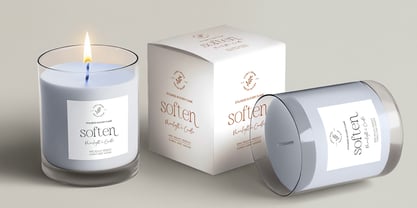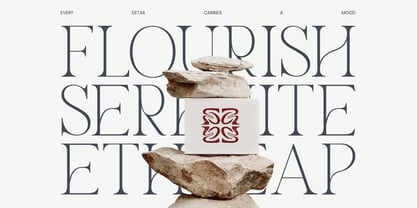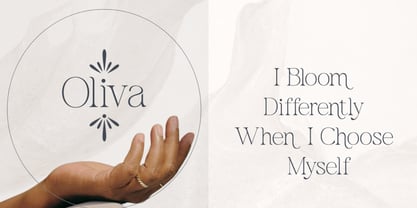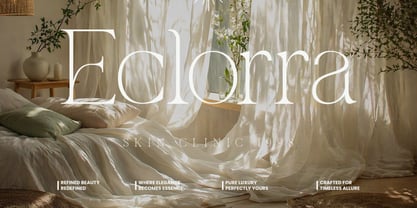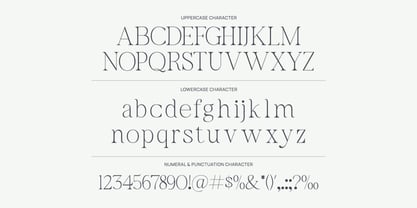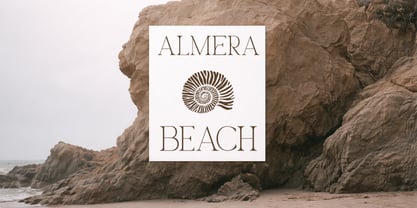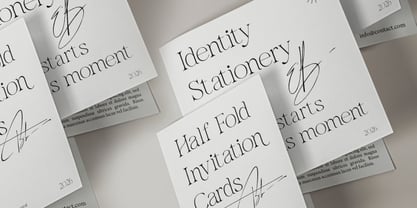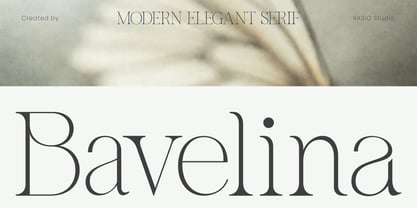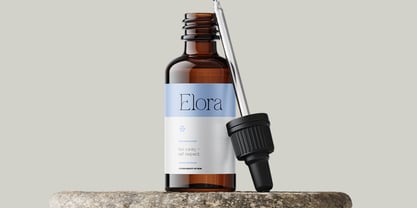
Bavelina
Die Schriftfamilie Bavelina wurde von Fajar Indra entworfen und von Rasio Studio veröffentlicht. Bavelina enthält 1 Stile. Mehr über diese Familie
Bavelina is a modern elegant serif typeface defined by refined contrast, delicate curves, and graceful proportions. It includes uppercase, lowercase, numerals, and punctuation with carefully crafted letterforms that emphasize sophistication and readability. The design blends classic serif aesthetics with a contemporary touch, making it suitable for high-end visual compositions. This typeface reflects modern elegance and is highly relevant for visual identities that emphasize luxury, beauty, and sophistication. It works effectively in branding, editorial layouts, and marketing materials where a refined and timeless tone is essential. Its balanced contrast and clean structure allow it to perform well in both large headlines and supporting text, especially in industries focused on aesthetics and premium presentation.